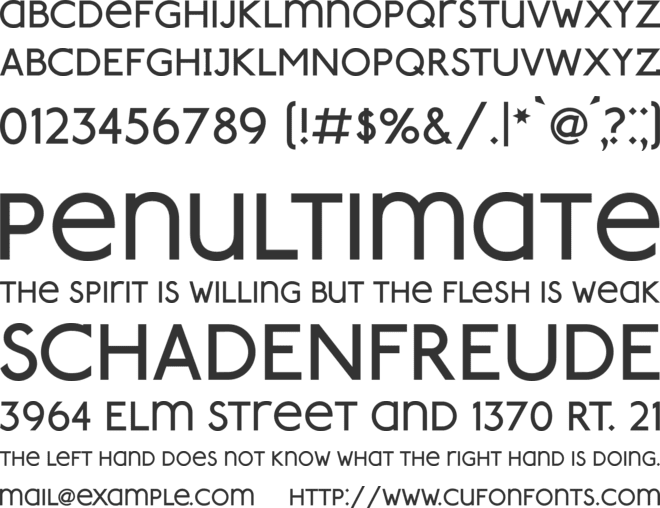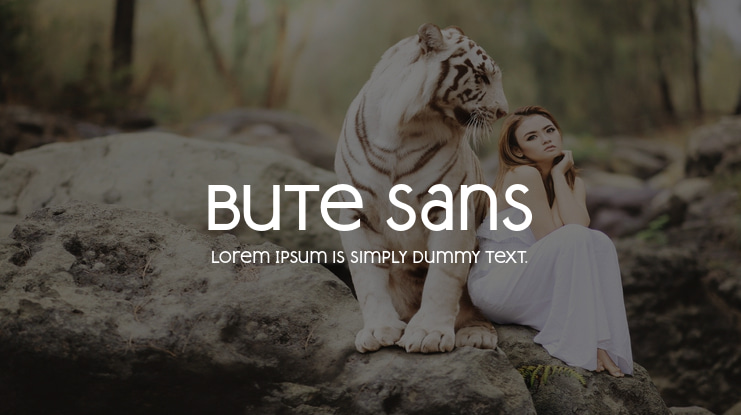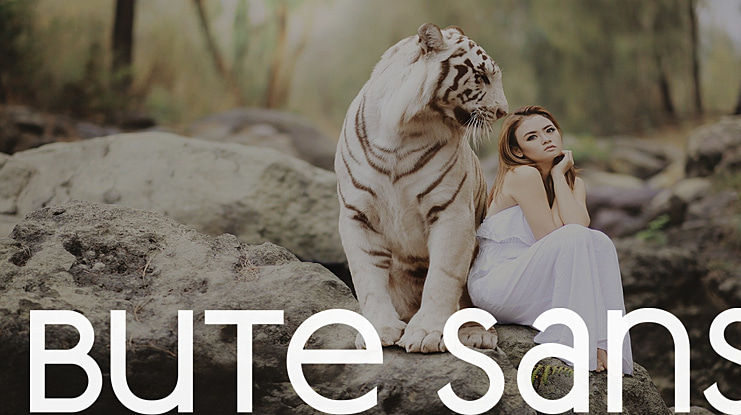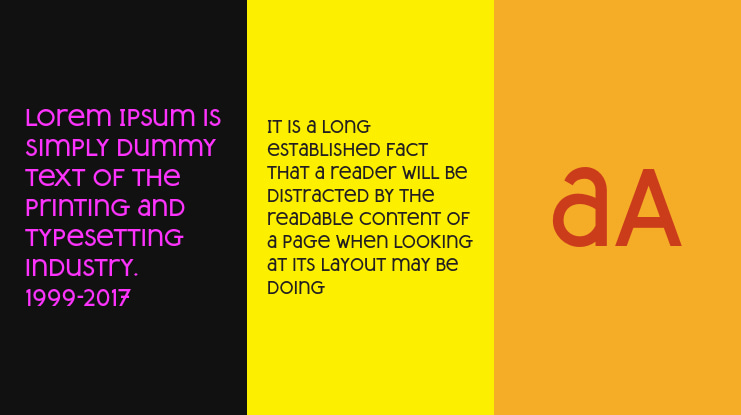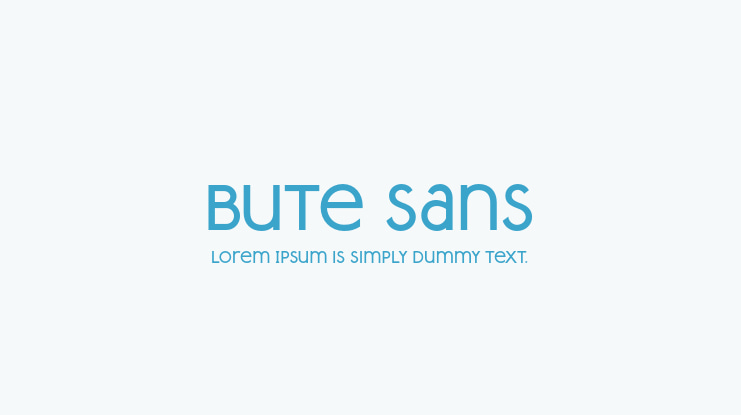
Bute Sans Font
Jonathan Paterson
Bute Sans Unicase is an OpenType font with a full Western European character set and many unusual ligatures for English and French. It also automates the use of superior letters in common French abbreviations. For details, see the PDF document.